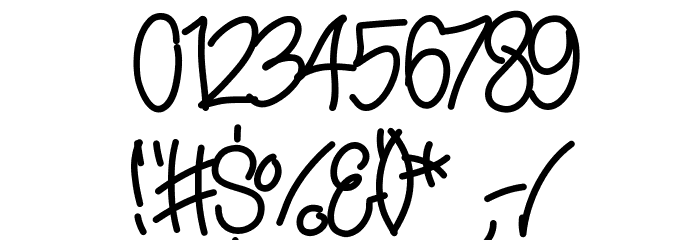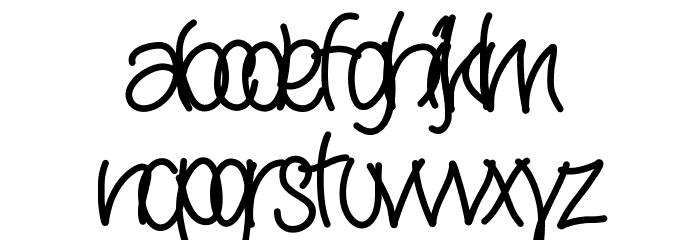
Yana Font
Yana Description
This font features a dynamic and expressive handwritten style, characterized by its flowing, cursive-like strokes that convey a sense of spontaneity and creativity. The letters are interconnected, with varying stroke thickness that adds to its lively appearance. The uppercase and lowercase letters maintain a consistent style, with a playful and informal tone. The numbers and special characters are crafted with the same energetic flair, making them suitable for projects that require a personal touch. This font's unique style can add a distinctive character to any design.
YANA UPPERCASE
YANA LOWERCASE
YANA OTHER CHARS
| Use Case | Logos, Headlines, Artistic designs |
| Proposed Projects | Ideal for creative projects such as greeting cards, invitations, personal branding, and artistic posters. |